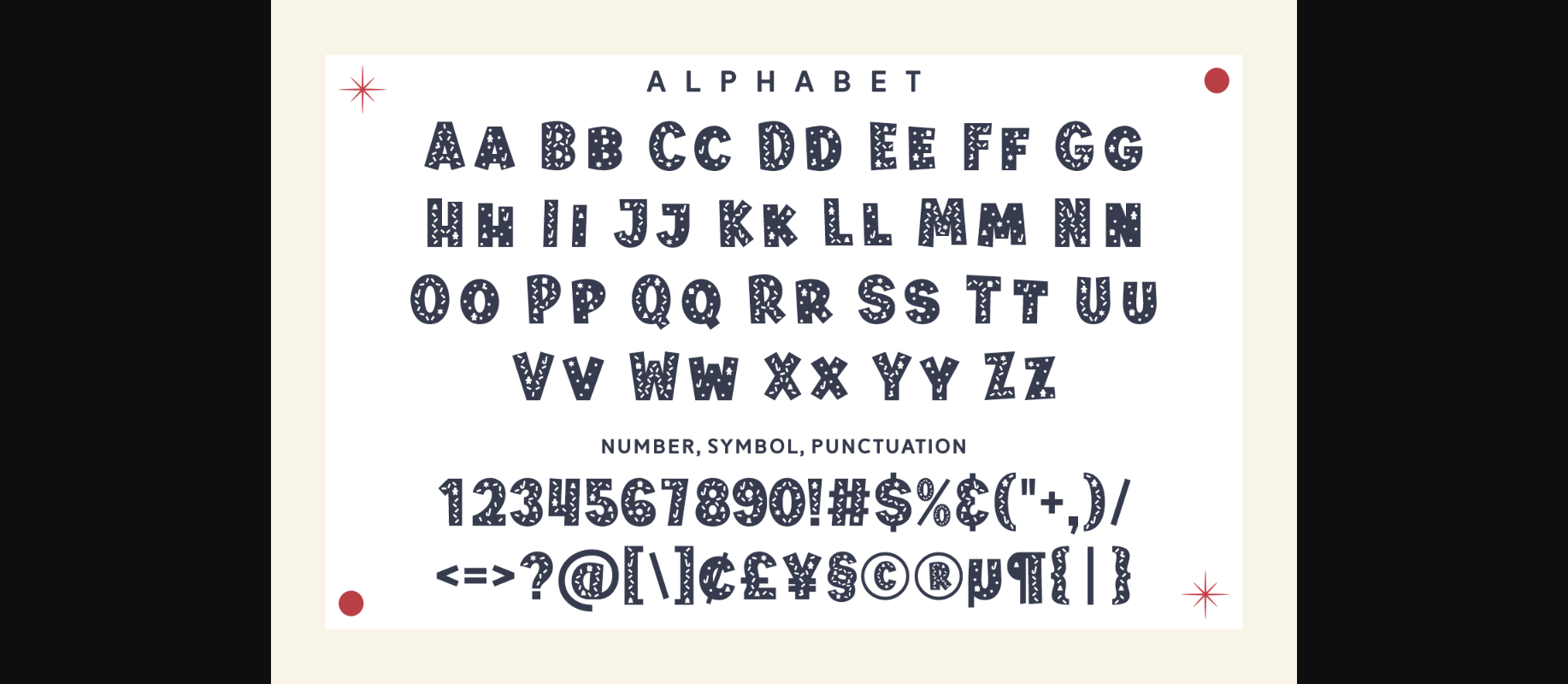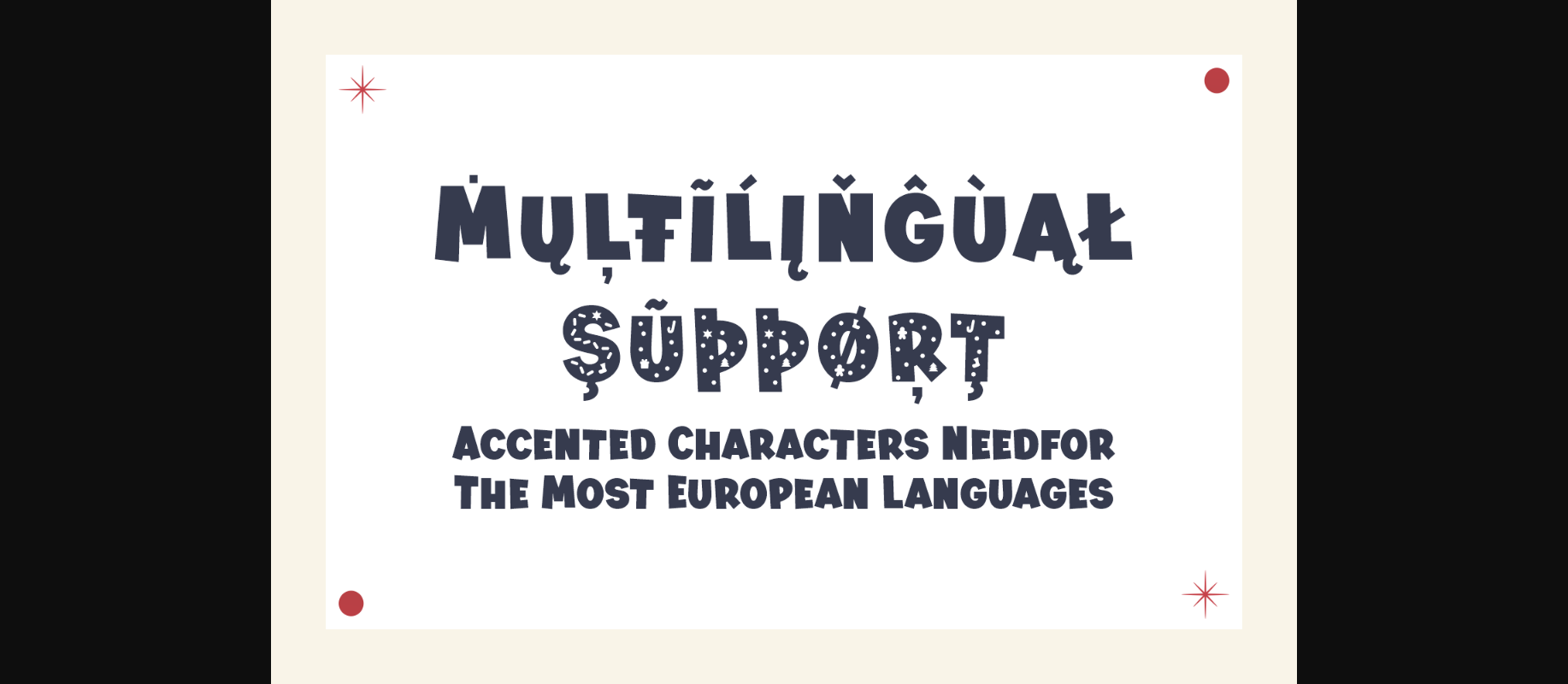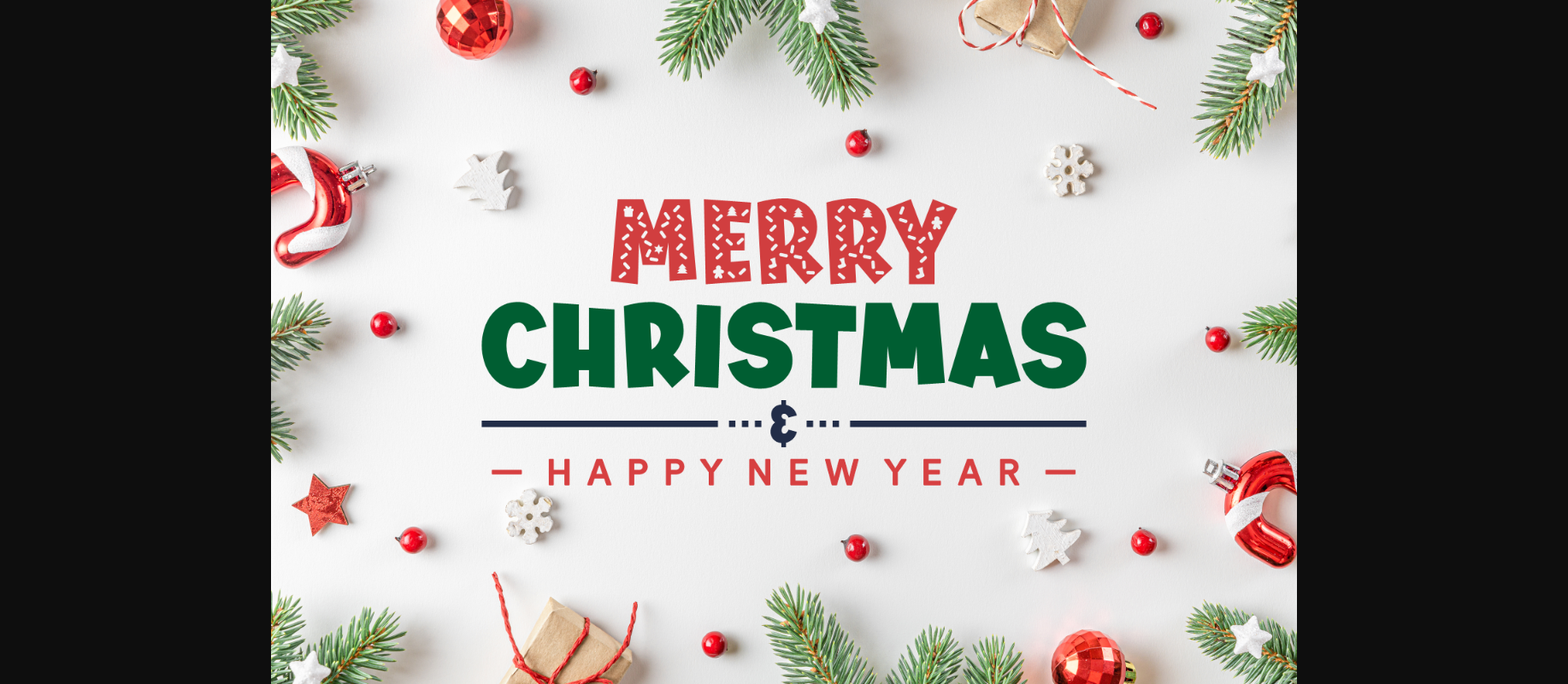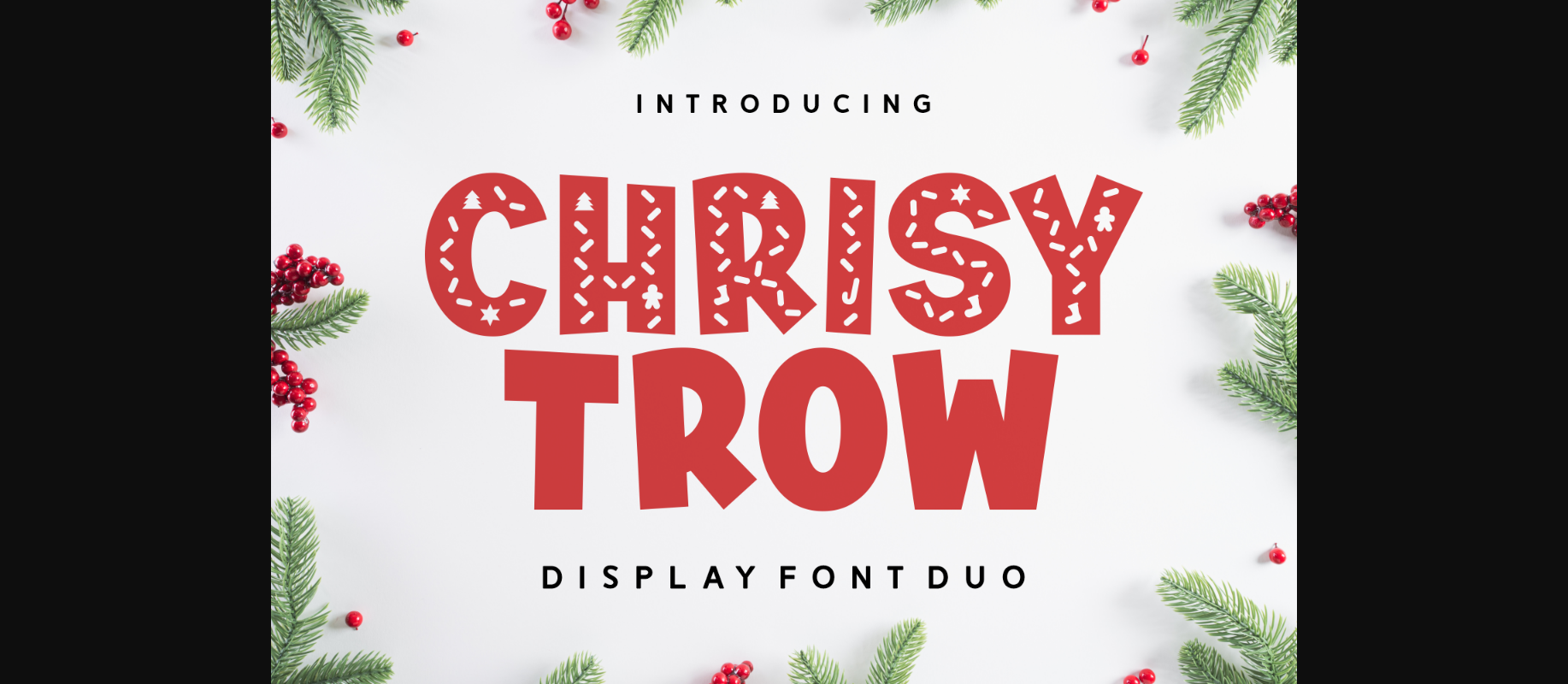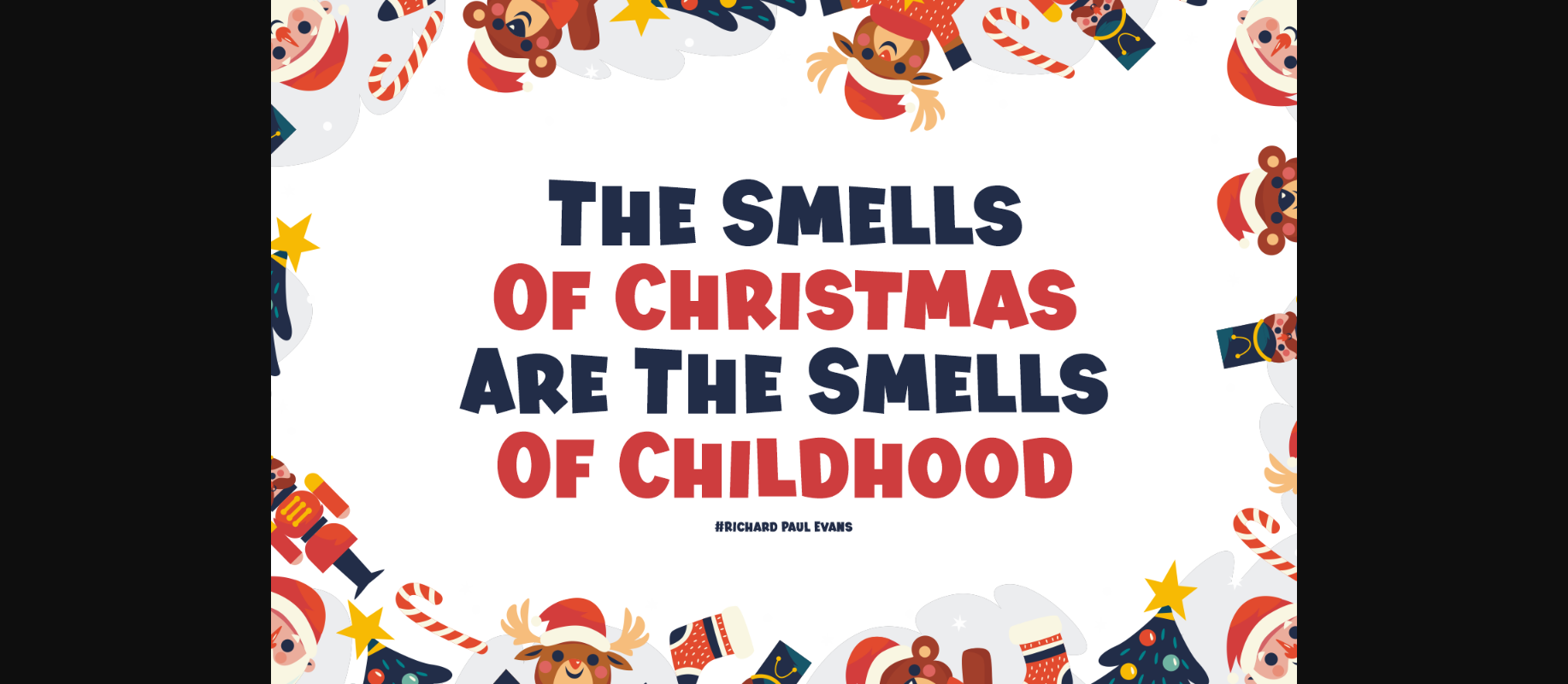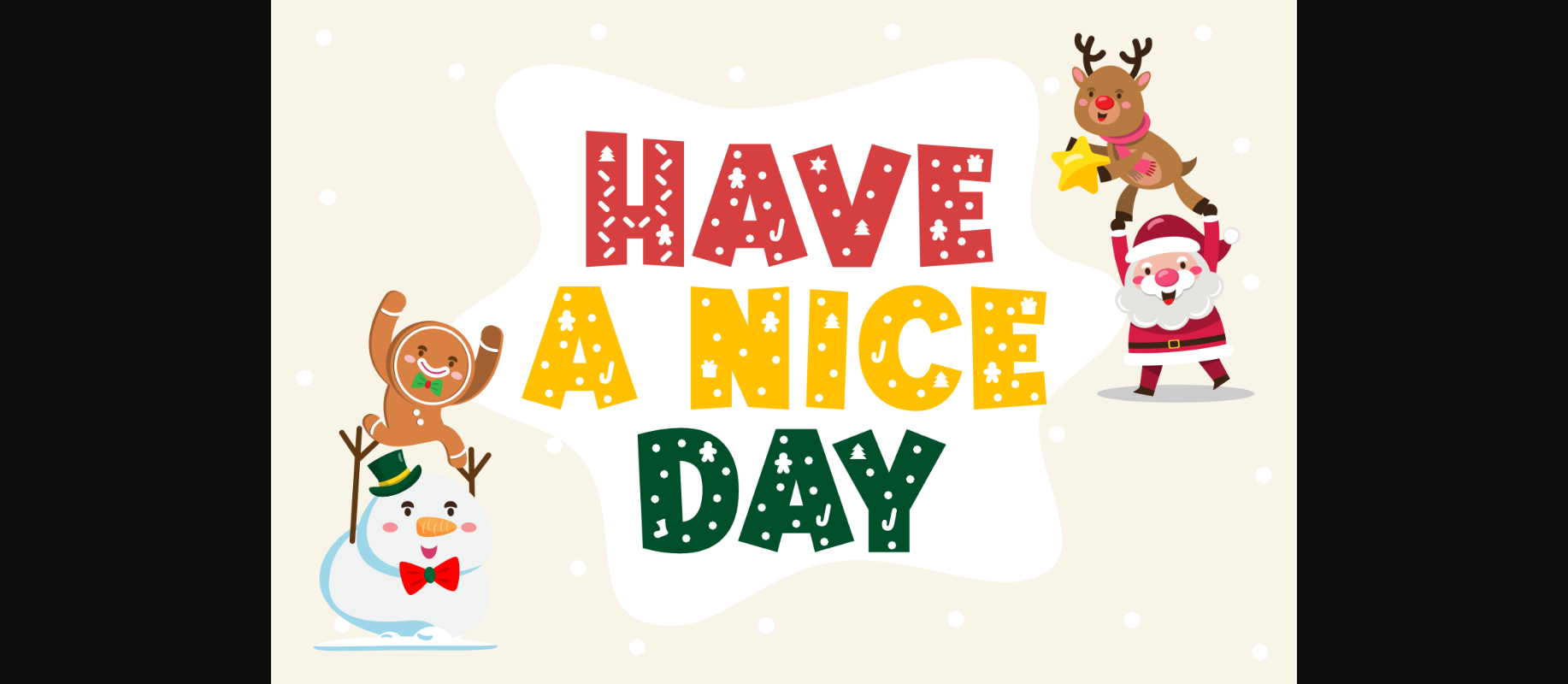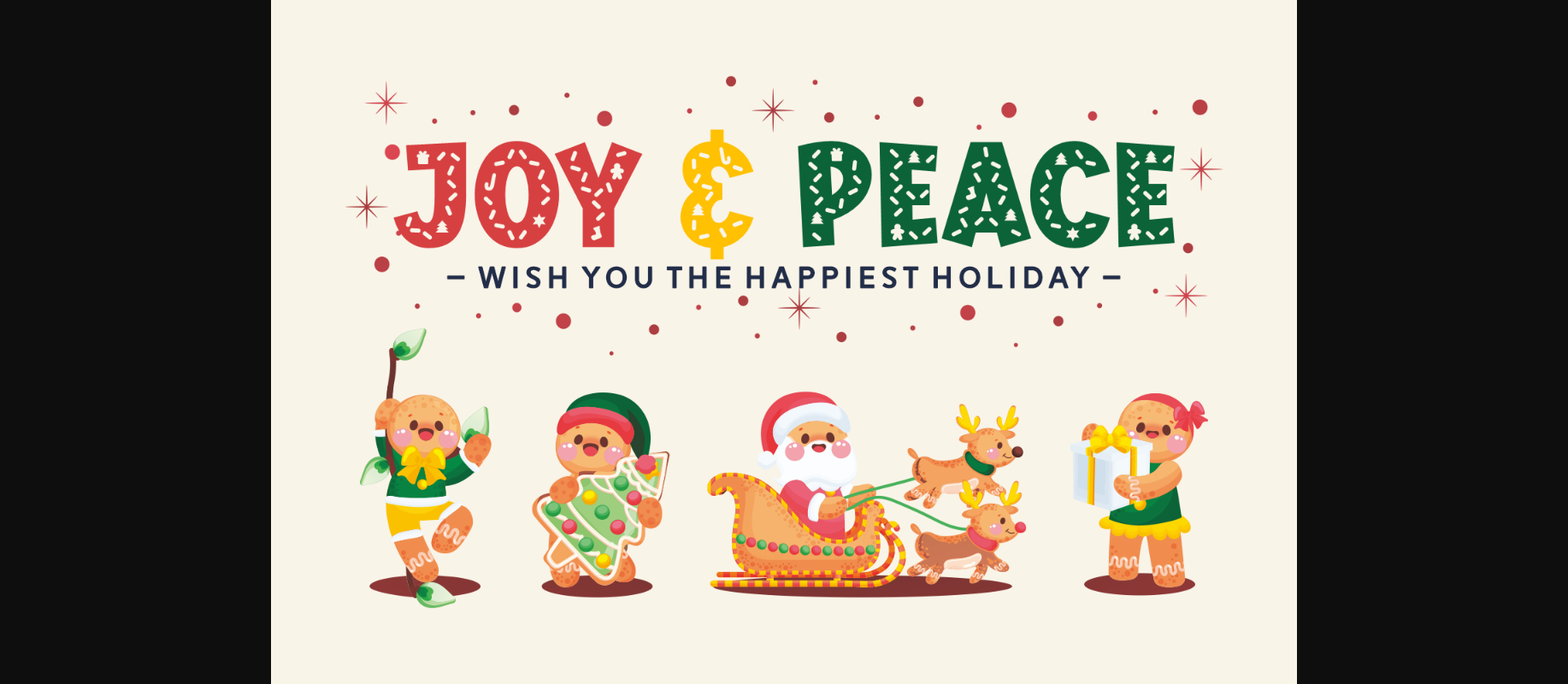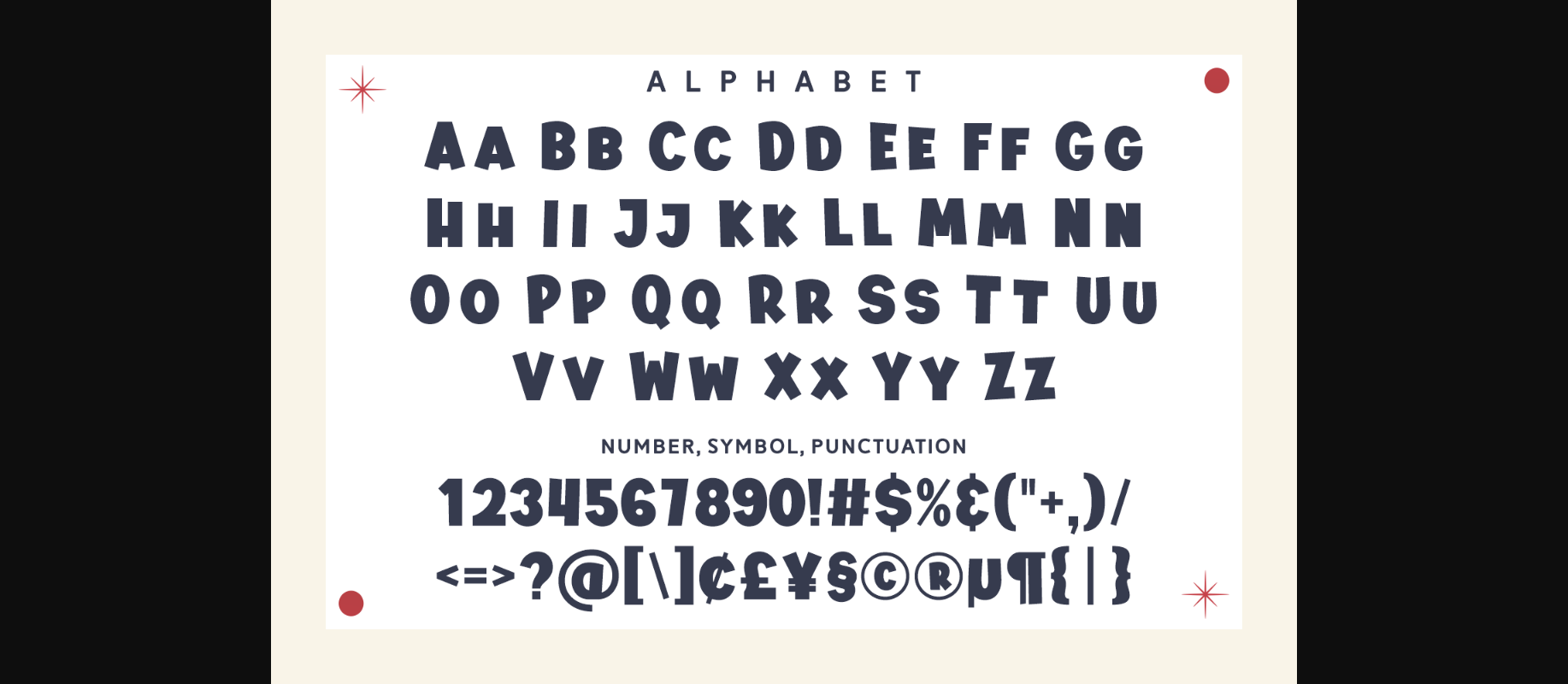
Chrisy Trow Font
About Chrisy Trow Font
The “Chrisy Trow” Christmas display font is a festive and whimsical typeface that brings the holiday spirit to your design projects. Each letter is adorned with charming Christmas elements like candy canes, snowflakes, and holly leaves, adding a touch of yuletide magic to your text. Perfect for creating cheerful holiday cards, banners, and decorations, “Chrisy Trow” will make your words shine with seasonal joy.